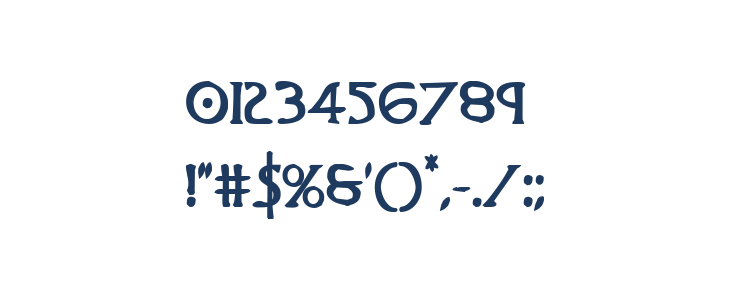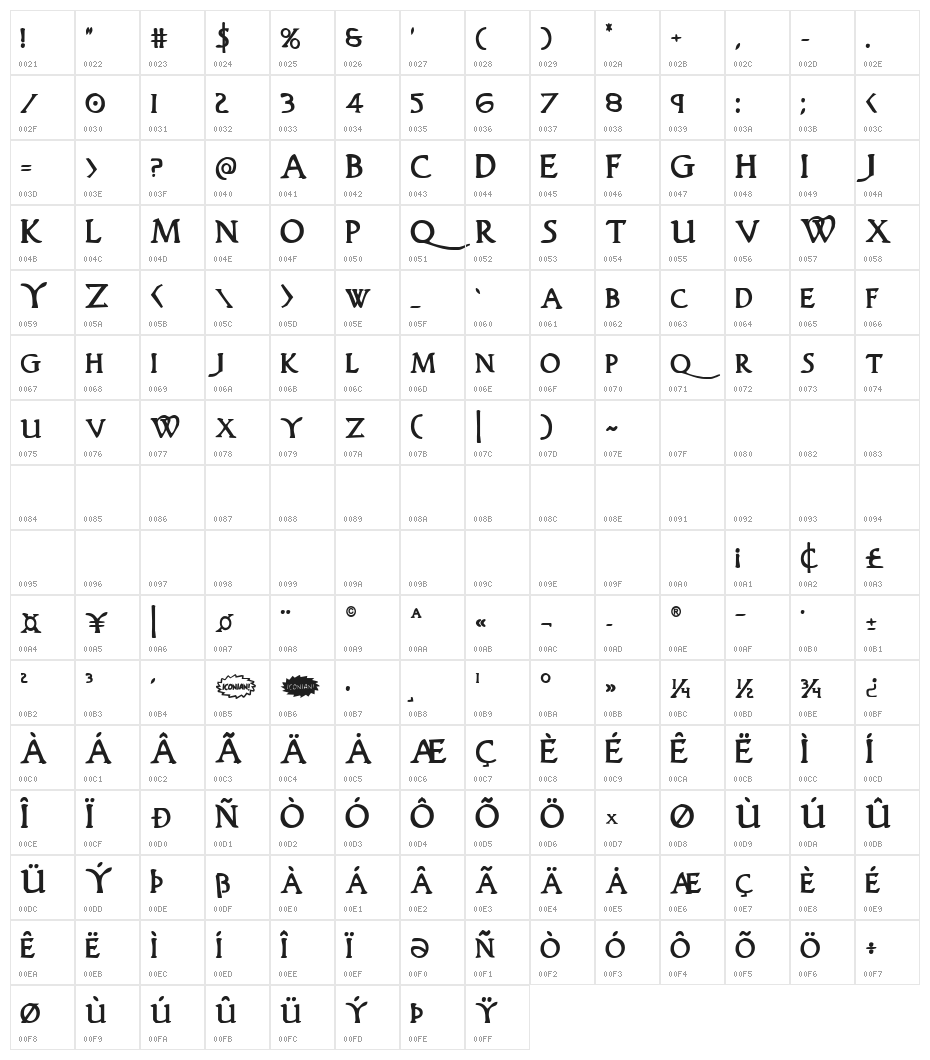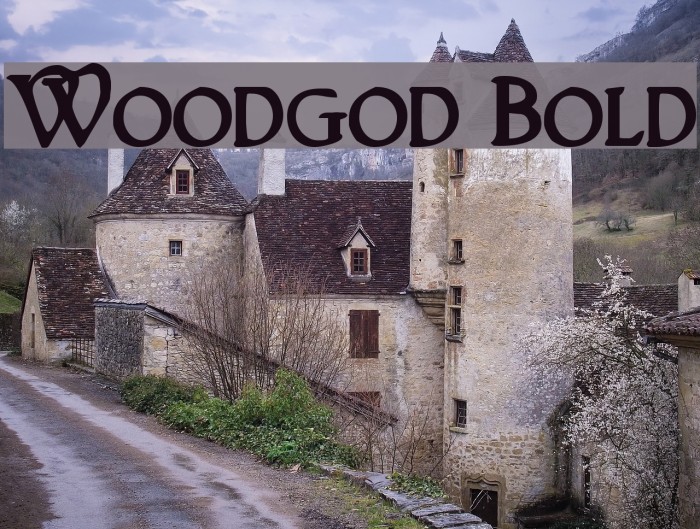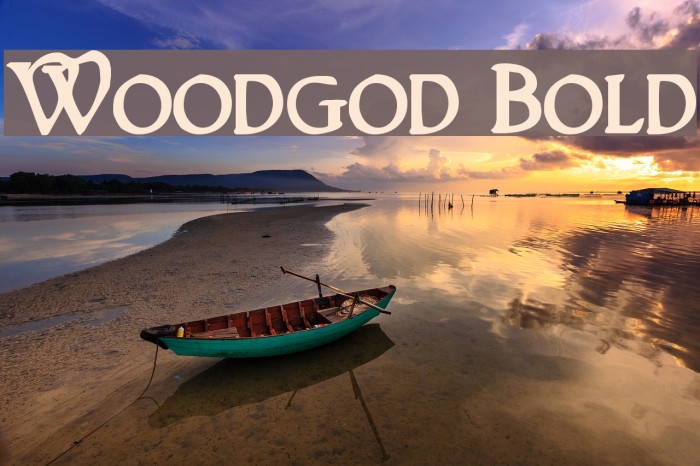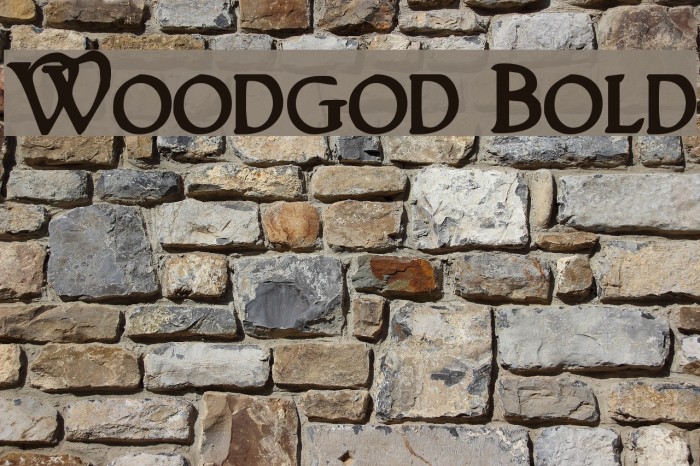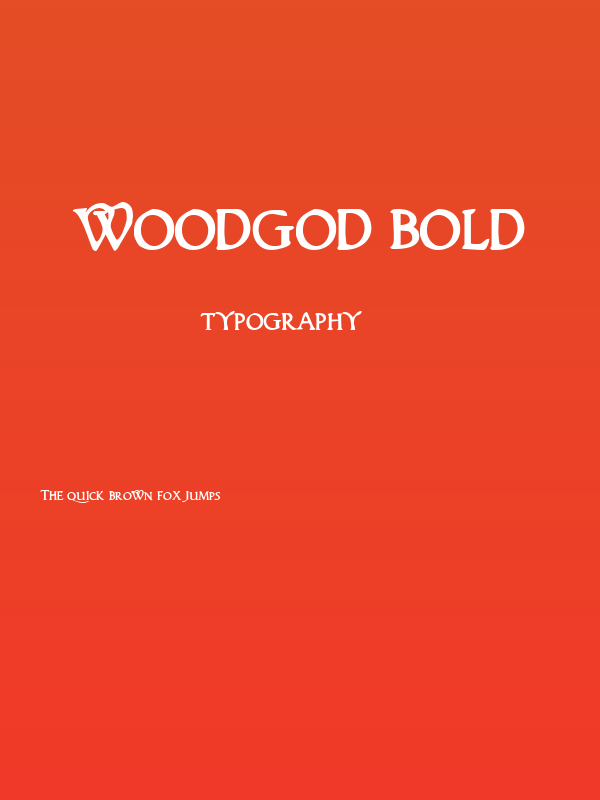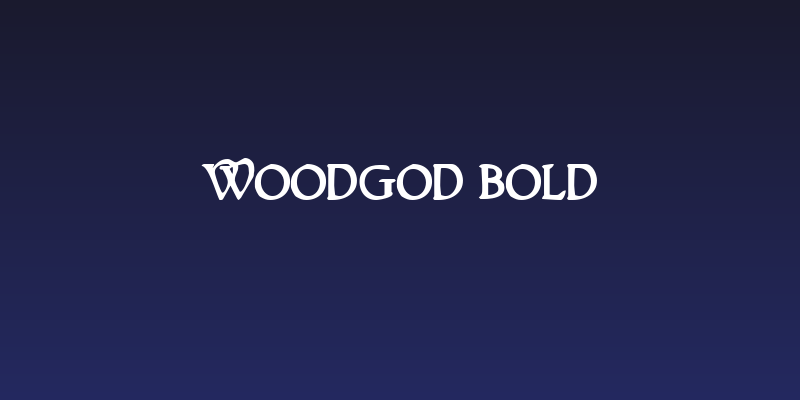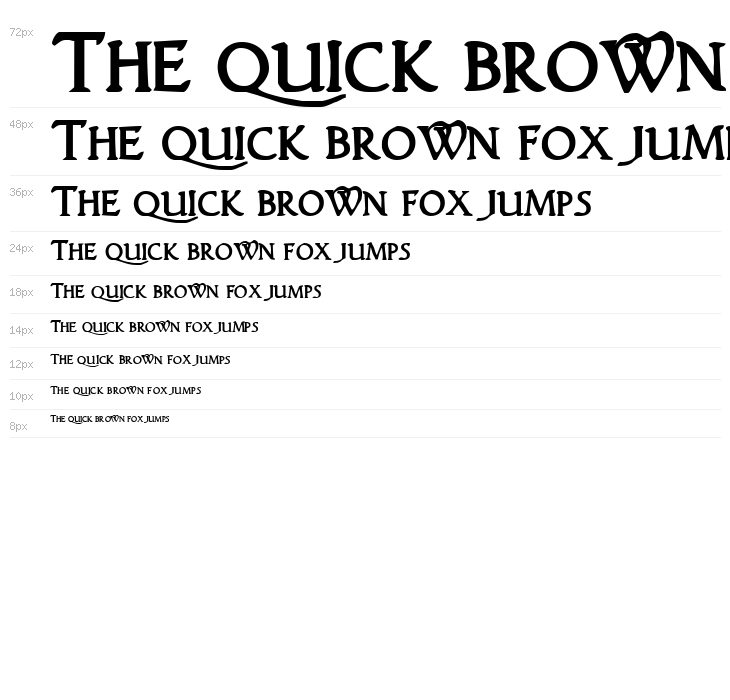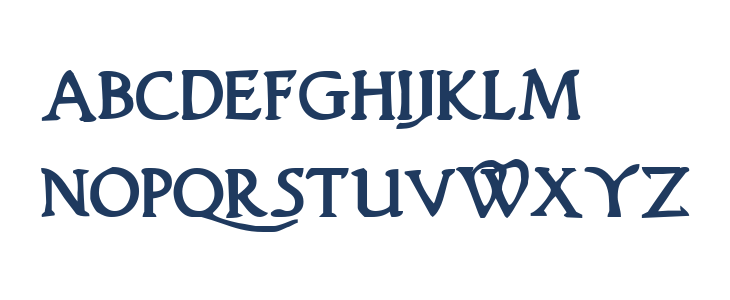
Woodgod Bold Font
Woodgod Bold Description
This font features a bold and decorative style with a unique flair. The characters are designed with a strong presence, incorporating subtle curves and flourishes that add a touch of elegance. The uppercase letters are particularly striking, with some characters featuring distinctive swashes that extend beyond the baseline, such as the 'Q' and 'R'. The numerals maintain the bold aesthetic, ensuring consistency throughout the typeface. Special characters are crafted with the same attention to detail, making them suitable for a variety of design applications. Overall, this font combines traditional serif elements with modern design twists, making it versatile for creative projects.